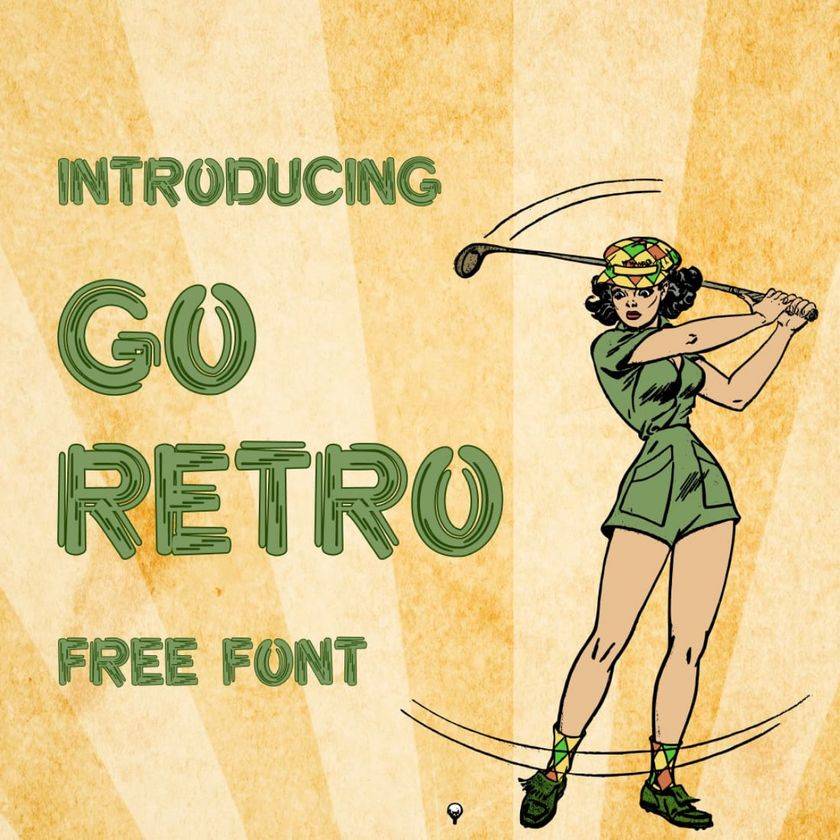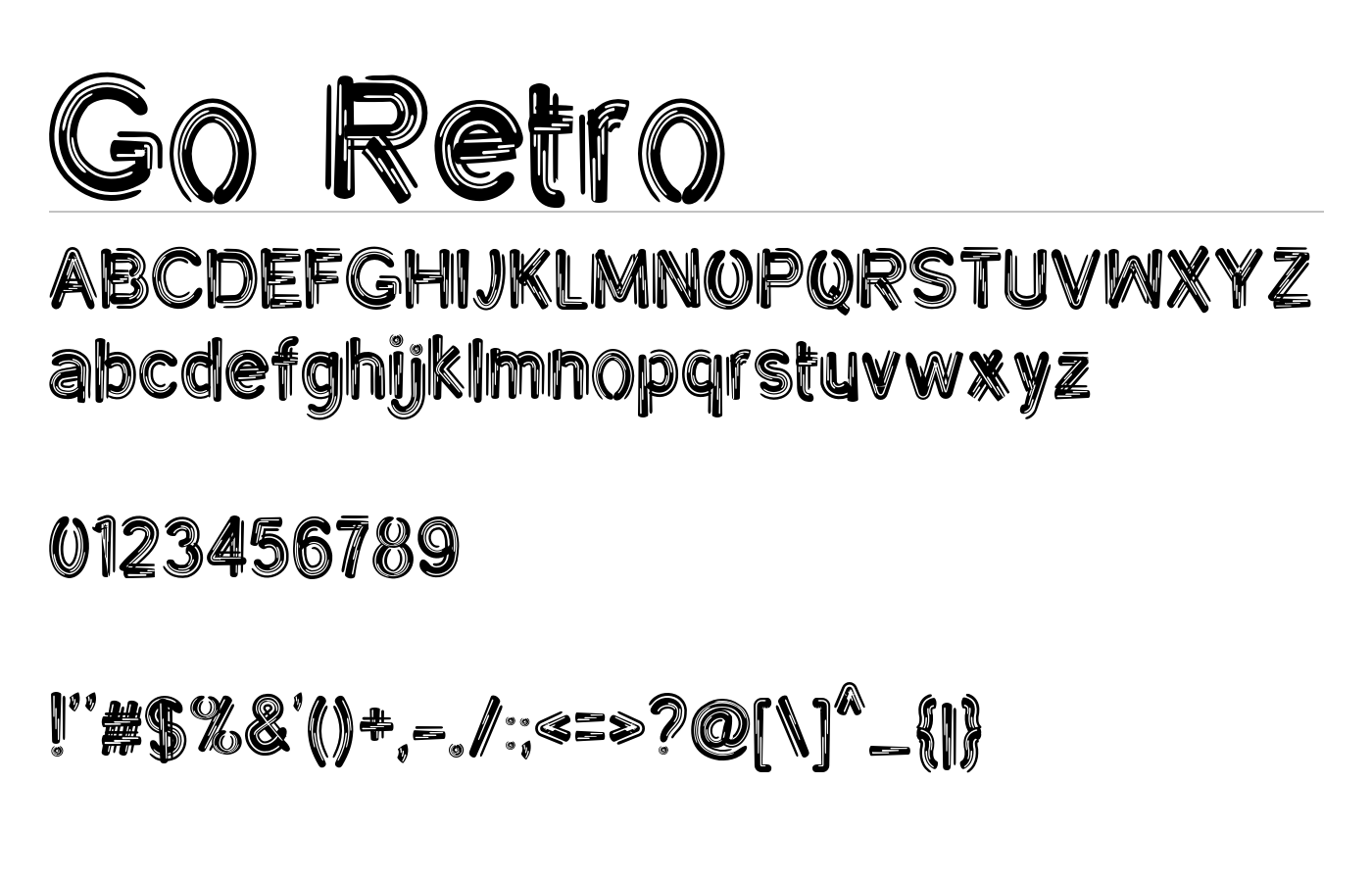
Go Retro is a playful and bold sans serif font characterized by its layered, striped strokes that evoke a vintage, hand-crafted feel. Its unique stencil-like design and medium weight make it perfect for creating eye-catching headlines, logos, and packaging with a fun, nostalgic vibe. Ideal for brands seeking a lively and retro aesthetic, this font adds energy and personality to any creative project.
Go Retro Font
About Go Retro Font
| Font family | Go Retro Font |
| Designer | Hindro cholis |